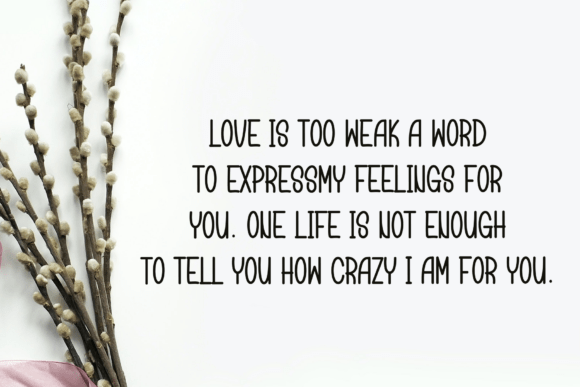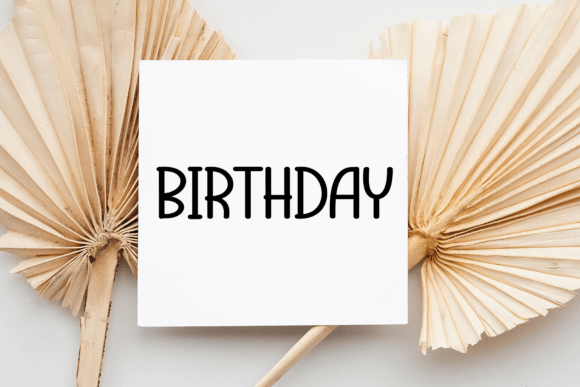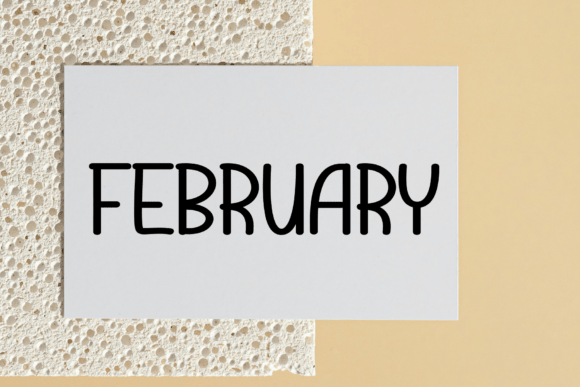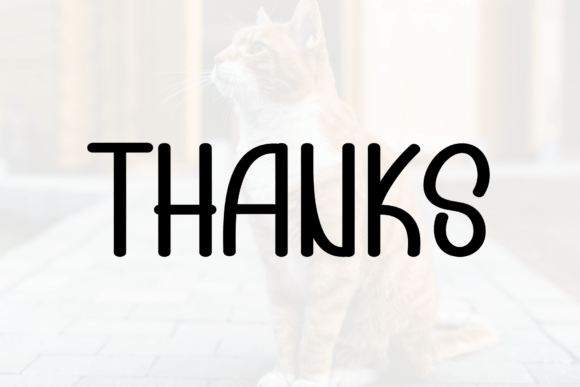
The Charm of Cardboard Font: A Designer’s New Best Friend
I’ll never forget the time I was working on a project for a client’s craft business, and I just couldn’t find the right font to match their brand’s cozy, handmade vibe. I scrolled through page after page of Google search results, but nothing seemed quite right. That was until I stumbled upon Cardboard Font – a sweet and beautiful handwritten font that has since become a staple in my design toolkit.
Featuring characters that dance along the baseline, Cardboard Font is the perfect addition to any design project that needs a touch of warmth and personality. In this article, I’ll share my honest review of the font, provide a practical guide on how to use it, and explore some similar fonts you might love.
My Honest Review of Cardboard Font
- ✅ The unique, hand-crafted feel of the font makes it perfect for designs that need a personal touch.
- ✅ The characters’ playful dance along the baseline adds a level of whimsy and fun to any design.
- ✅ The font is incredibly versatile and works well for a wide range of design projects, from branding and packaging to social media graphics and more.
- ⚠️ Some users may find that the font’s irregularities can make it difficult to read at very small sizes.
- ⚠️ The font’s OpenType features may not work seamlessly on all platforms or software.
The Story Behind Cardboard Font
Cardboard Font was designed by a talented type designer who wanted to create a font that captured the warmth and personality of handmade crafts. Inspired by the imperfections and uniqueness of hand-lettering, the designer created a font that would add a touch of coziness to any design project. The result is a beautiful, handwritten font that’s perfect for designers, crafters, and creative hobbyists alike.
| Font Name | Cardboard Font |
| Author | ArtLine Design |
Q: What is Cardboard Font?
A: Cardboard Font is a beautiful, handwritten font featuring characters that dance along the baseline.
Q: Is Cardboard Font easy to read?
A: Cardboard Font is generally easy to read, but may be difficult to read at very small sizes due to its irregularities.